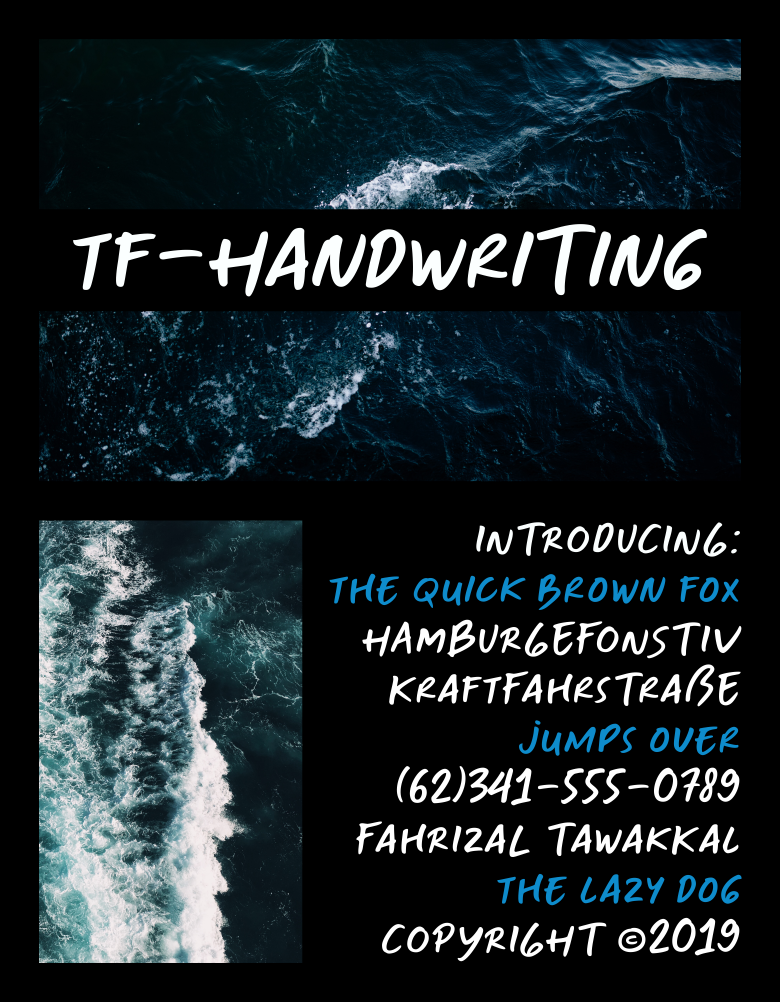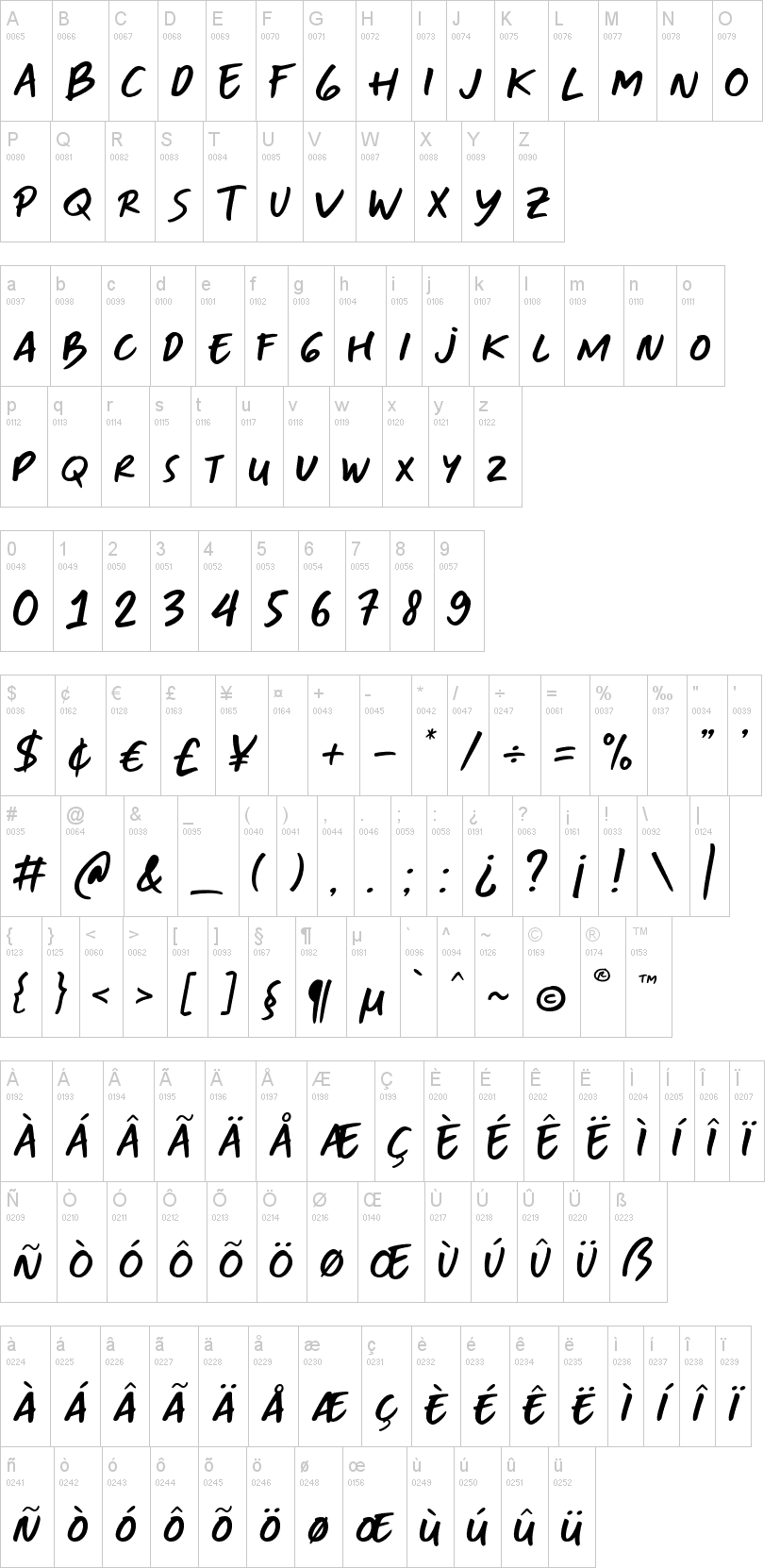
TF Handwriting
Note of the authorIntroducing our new font; TF-Handwriting. A font that taken from our real life handwriting by ballpoint pen, digitally traced and adjusted. Suits best for any project that needs an authentic handwriting text/feels.